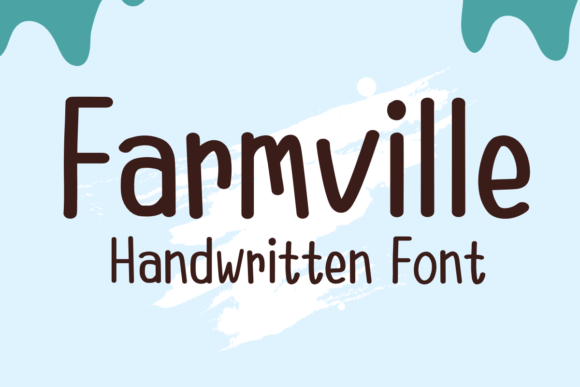
Unleash the magic of self-expression with Farmville Font, an enchanting handwritten display creation by Digital Creative Art. This captivating script, brimming with warmth, whimsy, and personality, invites you to add a touch of delight to your design endeavors.
Immerse yourself in the charming world of Farmville Font, where letters dance like delicate brushstrokes, leaving a trail of pure joy in their wake. Its carefully crafted characters, reminiscent of a child's playful scribbles, exude a sense of heartfelt sincerity that instantly captivates the viewer.
With its irresistibly sweet and friendly demeanor, Farmville Font is the perfect companion for your creative journey. Whether you're a seasoned designer, a passionate crafter, or simply seeking to bring a touch of magic to your digital designs, this font is sure to leave a lasting impression.
Step into a realm where imagination reigns supreme, where words transform into enchanting works of art. From heartfelt wedding invitations to playful children's books, Farmville Font effortlessly adapts to your unique creative vision. Its versatility knows no bounds, making it an indispensable asset for any designer's toolbox.
Embrace the boundless possibilities of Farmville Font and embark on a creative adventure like no other. Let your imagination run wild as you craft personalized greeting cards that speak volumes, design eye-catching posters that demand attention, or create captivating social media posts that ignite engagement.
With Farmville Font as your trusty companion, the ordinary becomes extraordinary, and the mundane transforms into the magnificent. Experience the joy of seamless integration as this font harmoniously complements any design project, effortlessly elevating your creations to new heights of excellence.